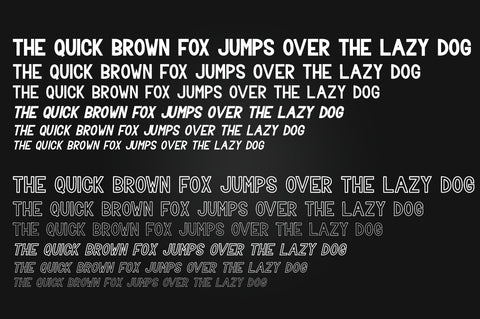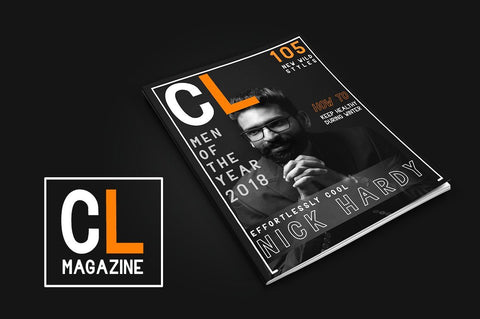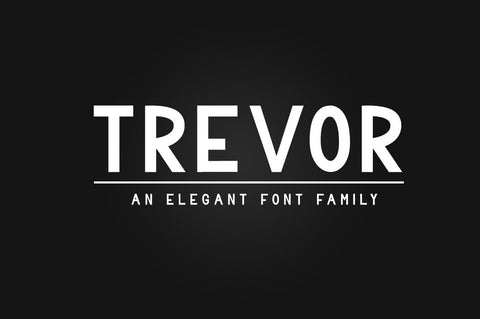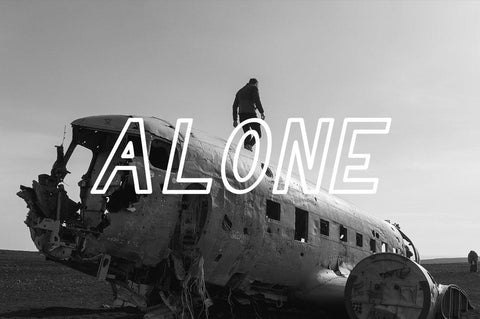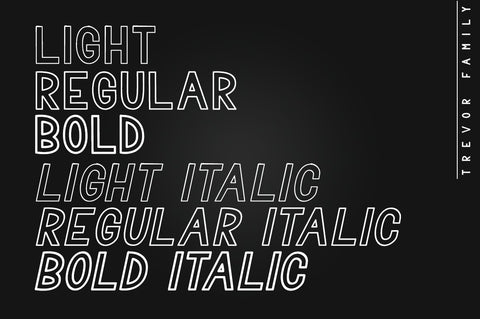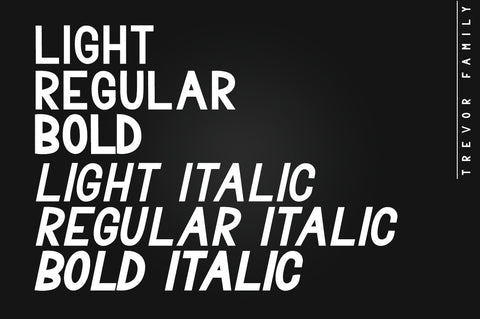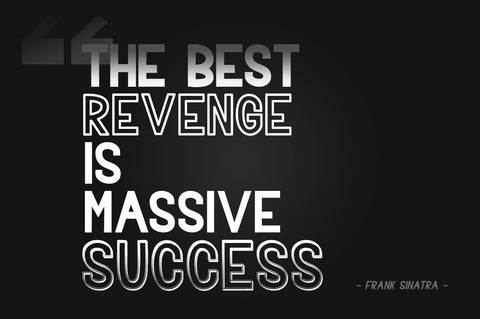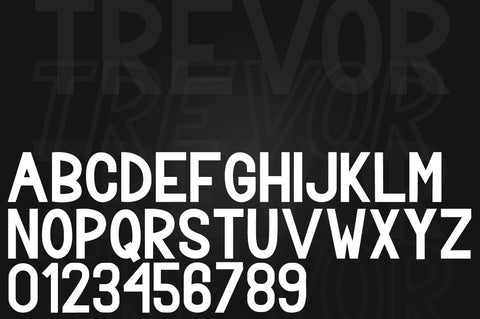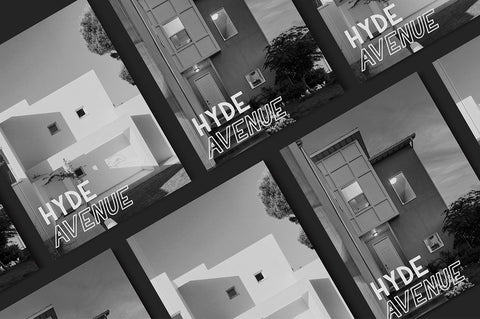
Trevor - Elegant Sans Serif Family Font
TREVOR, an elegant font and modern sans serif family. It's give the modern, sophisticated touch for every design. Great to pair with each font, or let it stand in their own. Best choice for titles, posters, branding, advertisements, quotes, and all designs which needs a strong yet elegant style.
TREVOR includes all 12 caps font : 3 weights, in regular, italic and hollow.
- All in caps characters
- Multiligual supports
- Punctuation and symbols